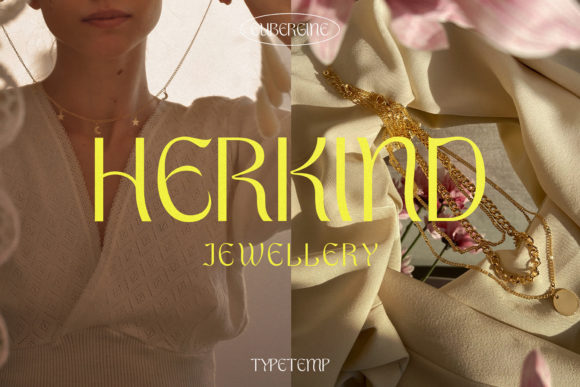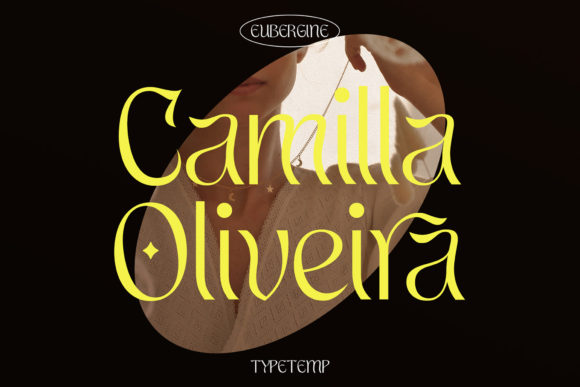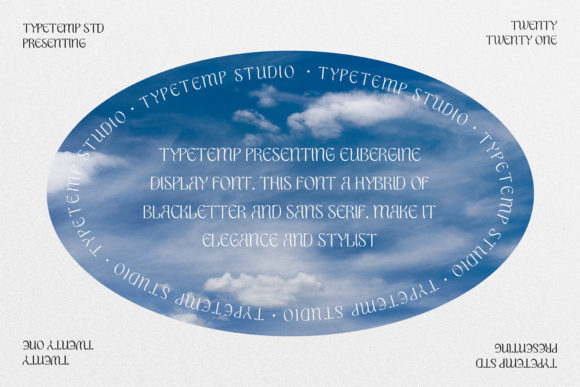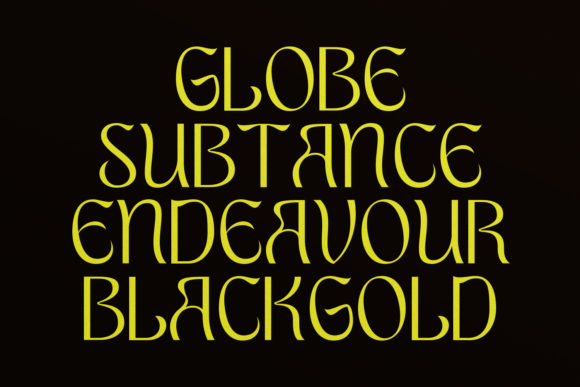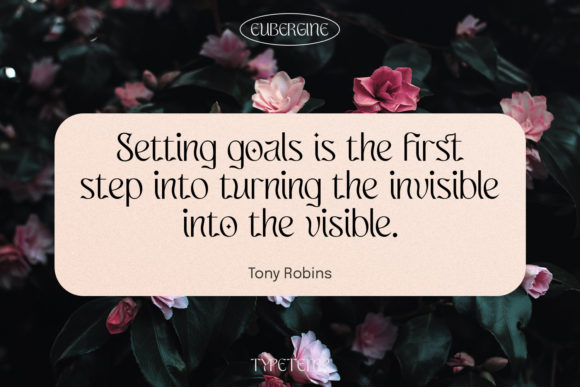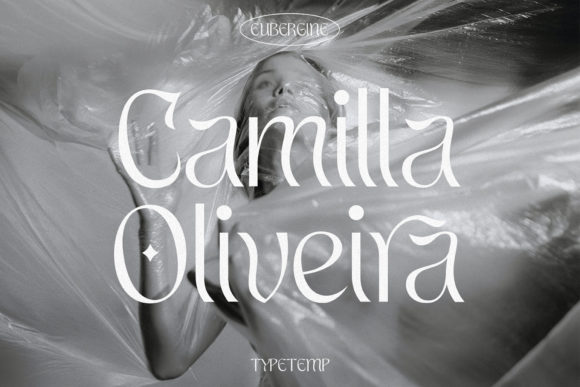
Introduction to Eubergine Font
Eubergine is a beautiful and unique display font perfect for editorial projects, logo design, clothing branding, product packaging, magazine headers, or simply as a stylish text overlay to any background image.
Add it to any of your creative projects, and notice how it makes them exquisite and outstanding .
Key Features of Eubergine Font
Why Choose Eubergine Font?
Eubergine Font offers exceptional quality and versatility, making it a valuable addition to your design toolkit. Whether you’re creating for personal projects or commercial use, Eubergine Font delivers professional results.